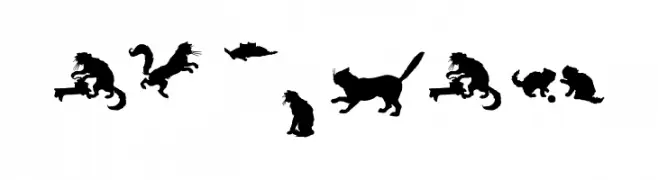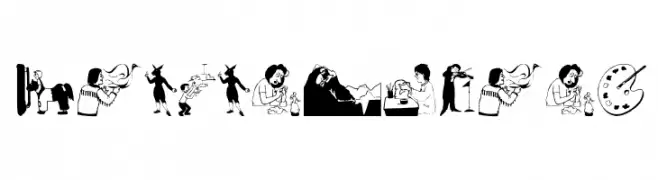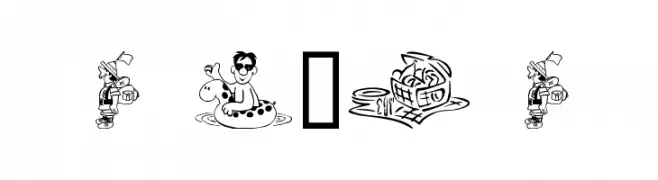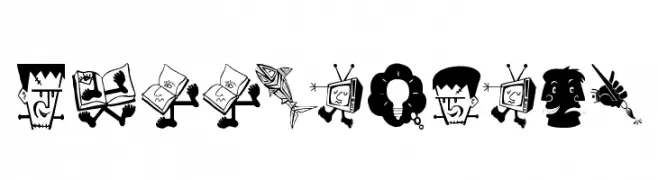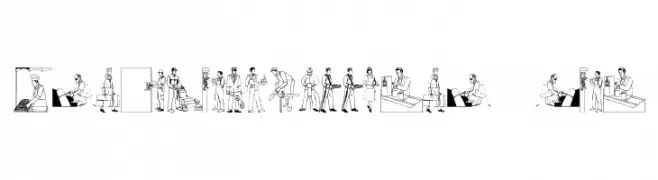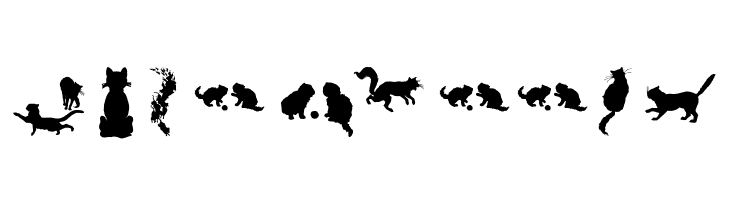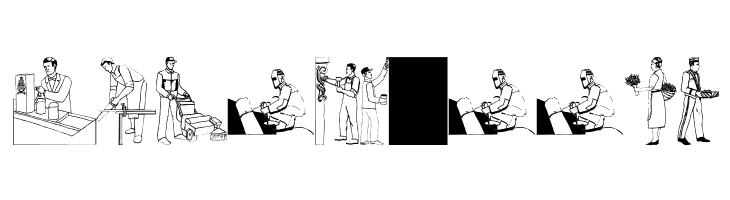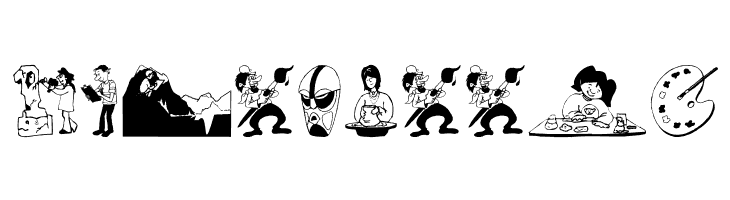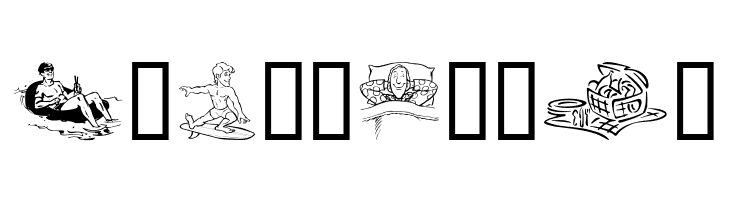
Outdoor adventure pictogram font with climbing and camping scenes.
A decorative cat-themed silhouette font.
Illustrative font featuring workers and job scenes as characters.
Illustrative, vintage-themed decorative font using art and craft imagery for each character.
Playful, hand-drawn cartoon illustrations themed around weather and activities.
Illustrative, decorative font themed around dramatic and creative arts.
Cartoon dingbat font with celebration and party-themed illustrations.
( Fonts by Graham Meade - GemFonts )
Cartoon vignette font with playful, hand-drawn scenes.
A whimsical collection of surreal and playful character designs.
Cartoon school-themed illustrative font with characters made from playful scenes.